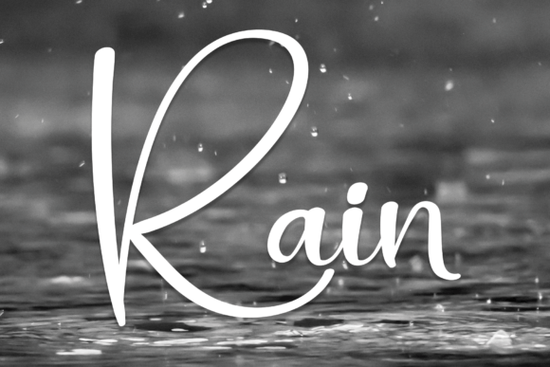
If you’ve been searching for a handwritten font that feels personal without being fussy, Rain Font might be exactly what your next project needs. It’s clean, approachable, and works just as well on a birthday card as it does on a printable planner or a small business logo. There’s no dramatic swirl or heavy texture just friendly letterforms that invite creativity without overwhelming your layout.
What kinds of projects is Rain Font best for?
This isn’t a font meant for corporate reports or legal documents. It shines where personality matters more than formality. Think:
- Greeting cards – birthdays, thank-yous, baby showers
- Printables – planners, journals, wall art
- Craft vinyl projects – tote bags, mugs, wooden signs
- Social media quotes – especially for lifestyle or wellness brands
- Small business branding – cafes, boutiques, handmade shops
It’s also surprisingly versatile across sizes. Use it large for a poster headline, or small for a subtle footer note it holds up. If you’re pairing it with something bolder or more structured, try combining it with Rathgar Stencil for contrast, or layer it under Malibu Holiday Duo during seasonal campaigns.
If you run a small shop or side hustle, fonts like this help keep your branding consistent without needing a designer on retainer. Pair it with simple shapes, neutral backgrounds, or soft color palettes, and you’ve got a look that feels intentional not thrown together.
How does it compare to other handwritten fonts?
Some script fonts lean heavily into calligraphy with thick downstrokes, ornate tails, and lots of movement. Rain doesn’t do that. It’s more like someone quickly jotted down a sweet note with a smooth pen. The baseline stays even, the spacing is predictable, and there’s no learning curve to using it.
For comparison, Bridger Signature has more flourish and elegance, which is great for luxury or wedding themes. Rain is the friend who shows up in comfy sweaters and remembers your coffee order. It’s reliable, warm, and never tries too hard.
If you’ve ever struggled with fonts that look beautiful in previews but turn messy when you actually type a full sentence? This one won’t do that. No awkward ligatures, no letters crashing into each other. Just straightforward, pleasant handwriting that scales and prints cleanly.
Any tips for getting the most out of this font?
A few small tweaks can make a big difference:
- Use generous line spacing – since it’s handwritten, giving it a little breathing room helps readability.
- Stick to shorter phrases – it’s perfect for headlines, quotes, or labels, but avoid long paragraphs.
- Try all caps sparingly – the lowercase letters have more charm and rhythm.
- Pair with a clean sans-serif – something like Montserrat or Lato balances its casual tone.
And if you’re using it for physical crafts like heat transfer vinyl or embroidery digitizing test a sample first. Some handwritten fonts get lost in translation when cut or stitched, but Rain’s clear strokes tend to hold up well.